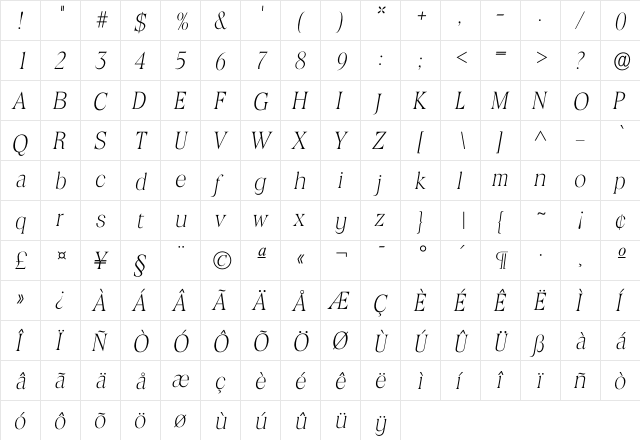
Itoledo Xlight
Design Context for Itoledo Typeface
Itoledo is a composed and adaptable typeface that performs quietly and consistently across a wide range of design contexts. Its slender proportions lend an understated elegance to any composition.